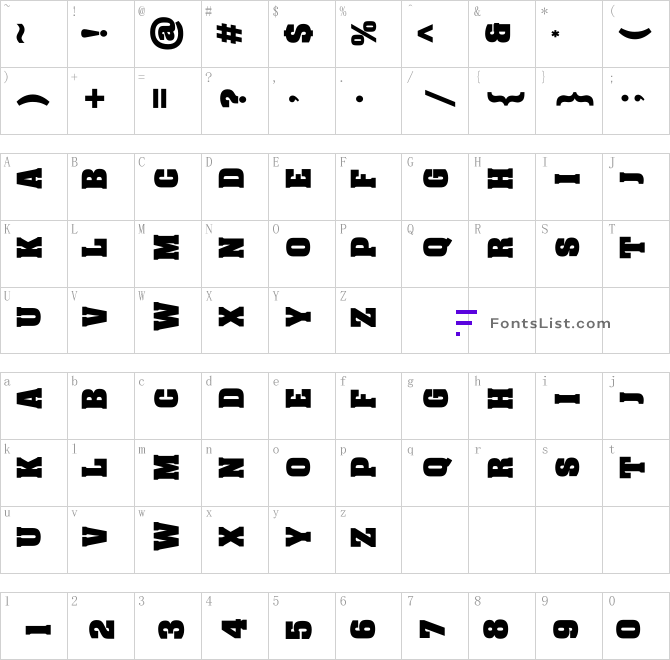
- Font Name:Aachen Vertical
Aachen-Vertical.ttf is a very beautiful artistic font, Aachen-Vertical.ttf is widely used in the design and printing of various books and pictures,Aachen-Vertical.ttf has a strong visual impact,Aachen-Vertical.ttf is a commonly used font in newspapers, magazines and books, and is used in posters, e-commerce Poster design, store design, logo design, font design and other fields.Aachen-Vertical.